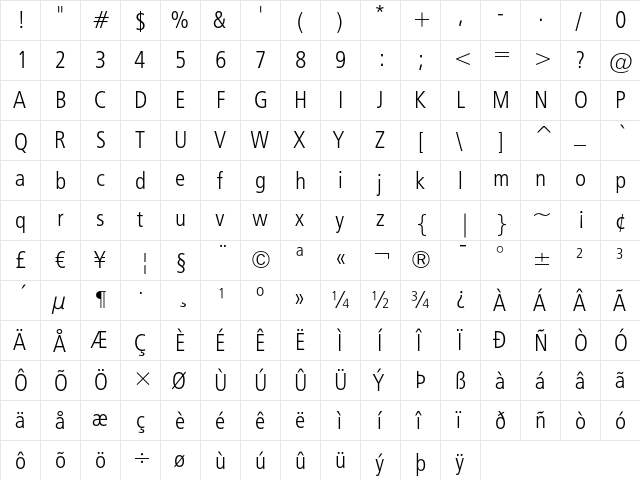
Humanist 777 Light Condensed Font Preview
Design Context for Humanist 777 Typeface
Humanist 777 takes a measured approach to typography — its balanced proportions and neutral character make it a reliable workhorse for both digital and print work. The delicate stroke weight brings airiness and refinement to layouts. The condensed width makes it efficient for tight spaces without sacrificing legibility.